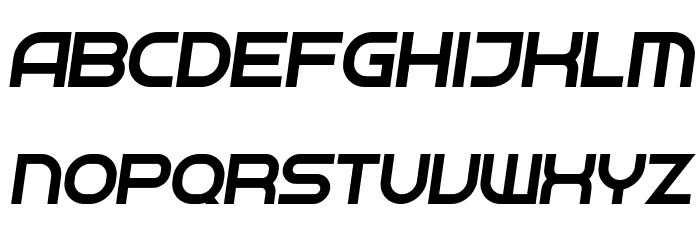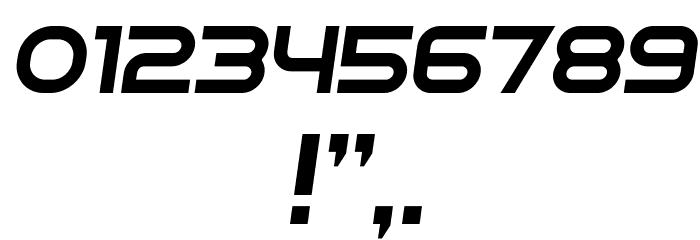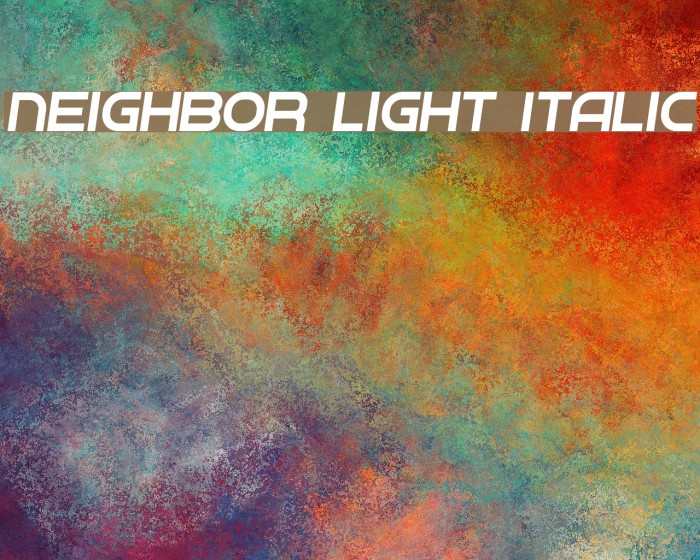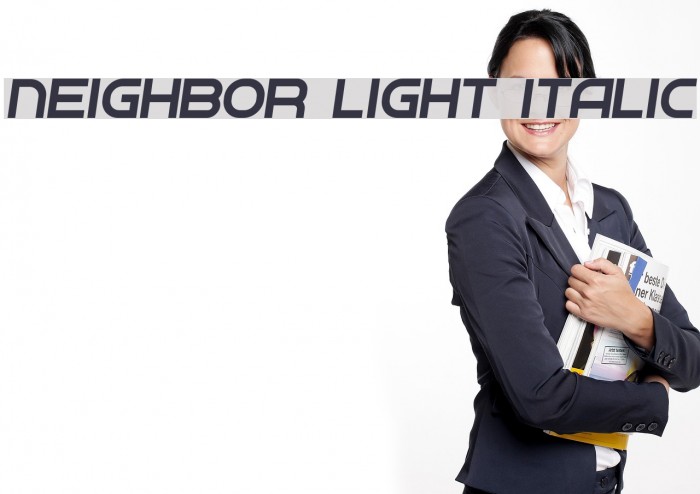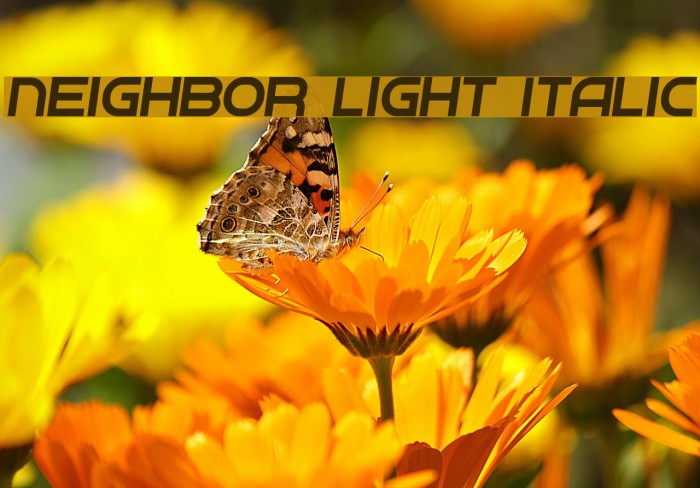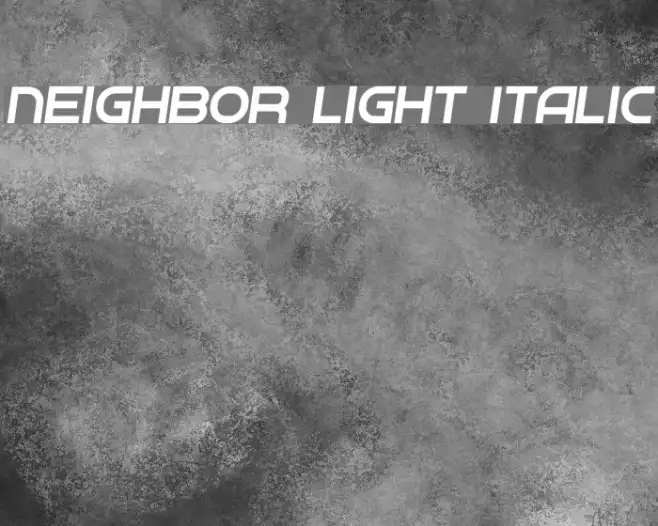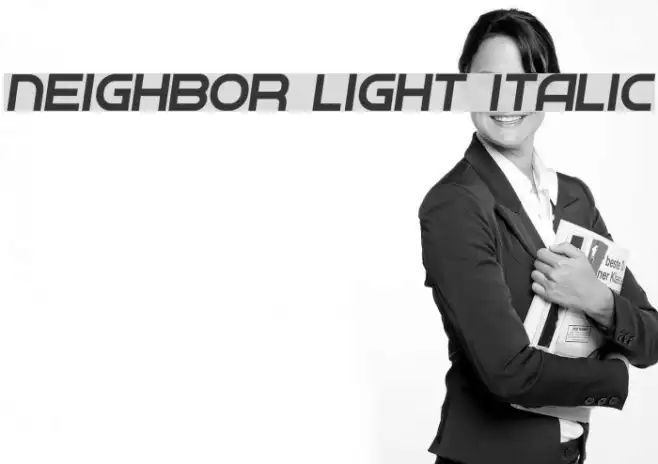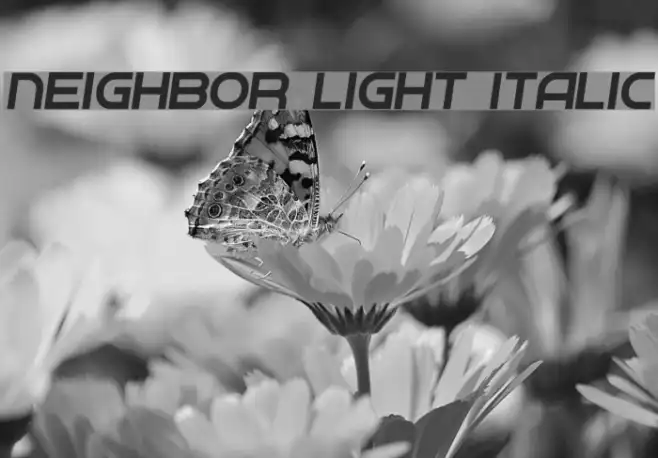
Neighbor Light Italic Font
This font features a sleek, modern design with a distinct italic slant, giving it a dynamic and forward-moving appearance. The characters are crafted with a geometric precision, showcasing rounded edges and smooth curves that contribute to its contemporary aesthetic. The uppercase and lowercase letters maintain a consistent style, with a uniform stroke width that enhances readability. The numerals are designed with the same attention to detail, ensuring they blend seamlessly with the alphabetic characters. The special characters, including punctuation marks, are well-integrated, maintaining the overall stylistic coherence of the font. Its light weight and italic style make it suitable for applications that require a touch of elegance and modernity.
A sleek, modern italic font with geometric precision and smooth curves.
- Proposed Projects: Ideal for branding, advertising, and editorial design projects that require a modern and dynamic look.
- Use Case: Headlines, Logos, Branding